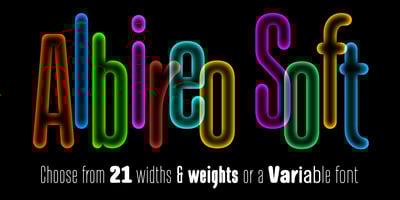
Albireo Soft Font Family was designed by Cory Maylett and published by Cory Maylett Design. Albireo Soft contains 22 styles and family package options. Albireo Soft in a softer version of Albireo, released by Cory Maylett Design in 2019. The svelte sans-serif letterforms and rounded terminals give Albireo Soft a highly legible and informal look that’s perfect for packaging, headlines, logos, brochures, digital use and anywhere else that needs a friendly condensed typeface.With a combination of seven weights in each of the three condensed widths, Albireo Soft will do the job when you need to squeeze many words into a limited amount of space. The fonts include the entire set of glyphs needed for all Western and Central European Latin-based alphabets. Meticulously crafted to ensure each glyph conforms to the highest possible quality standards, Albireo Rounded won’t let you down.You may buy one font at a time or save money by purchasing packages consisting of the seven fonts in each width. Save even more by purchasing the entire Albireo Soft collection and, in addition to the 21 separate fonts, you’ll receive a variable font that covers all the weights, widths and everything in between.